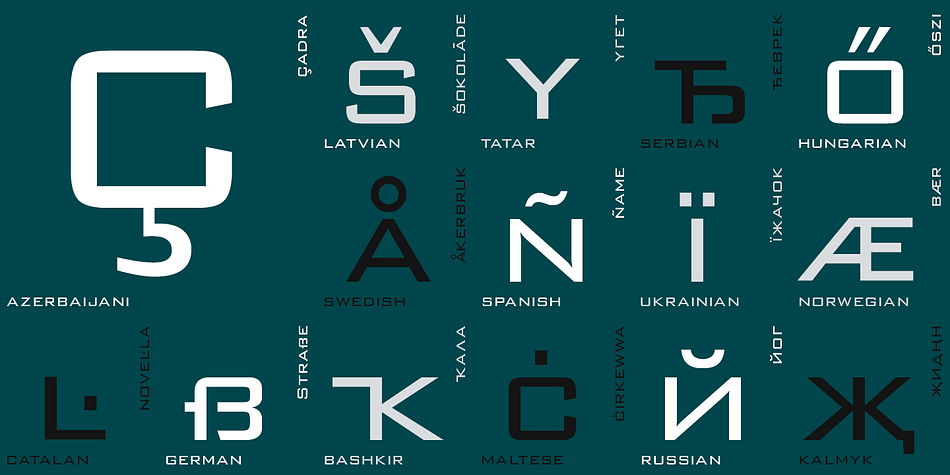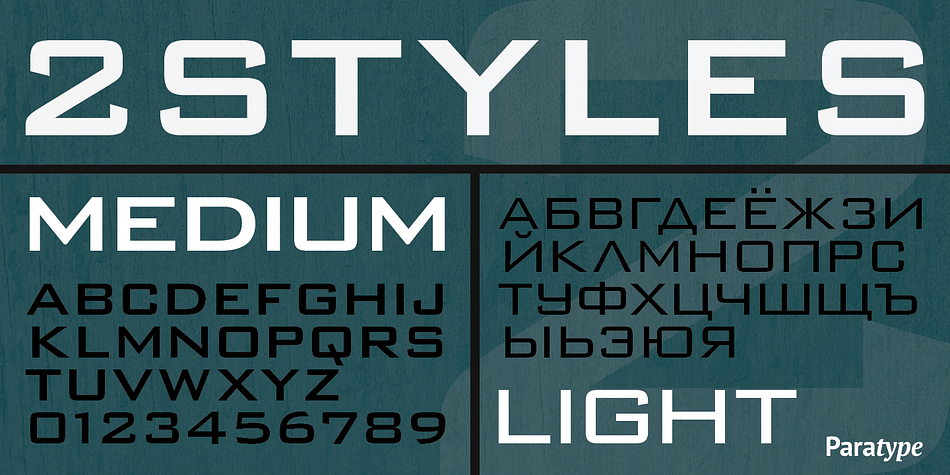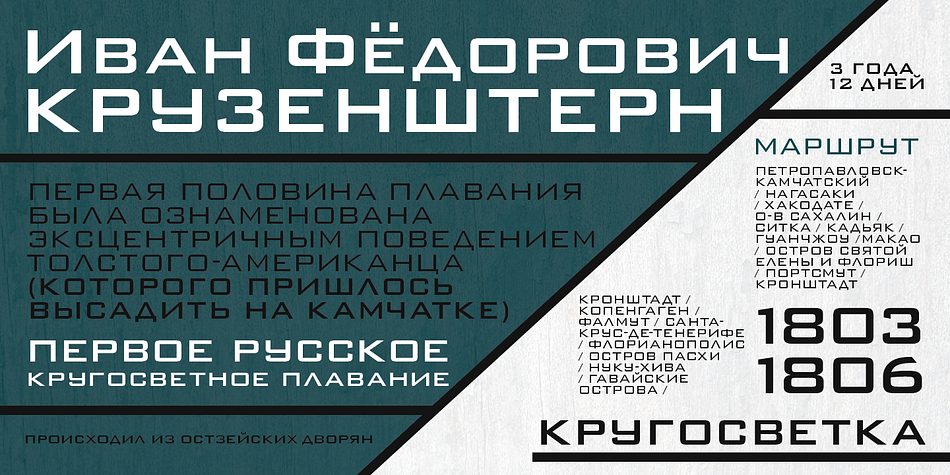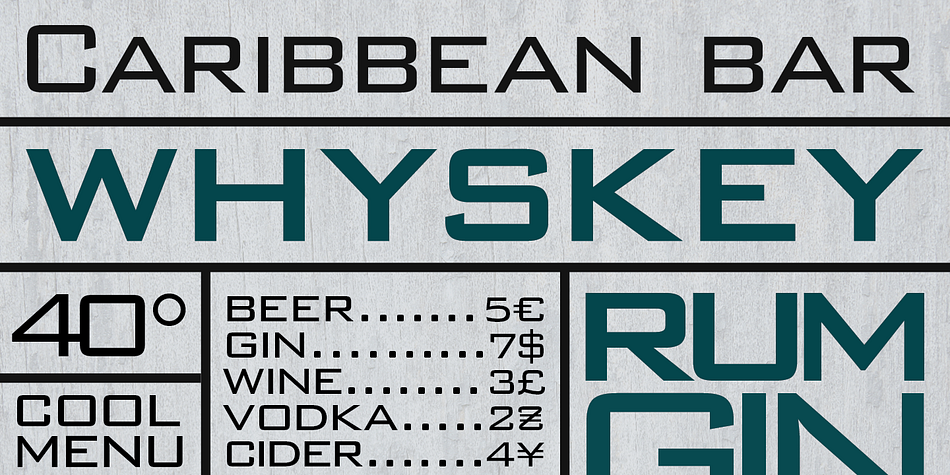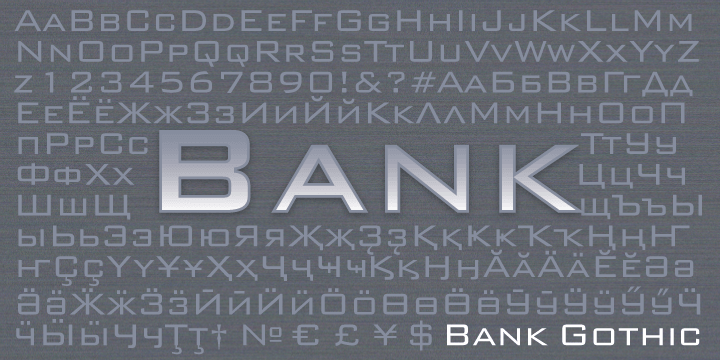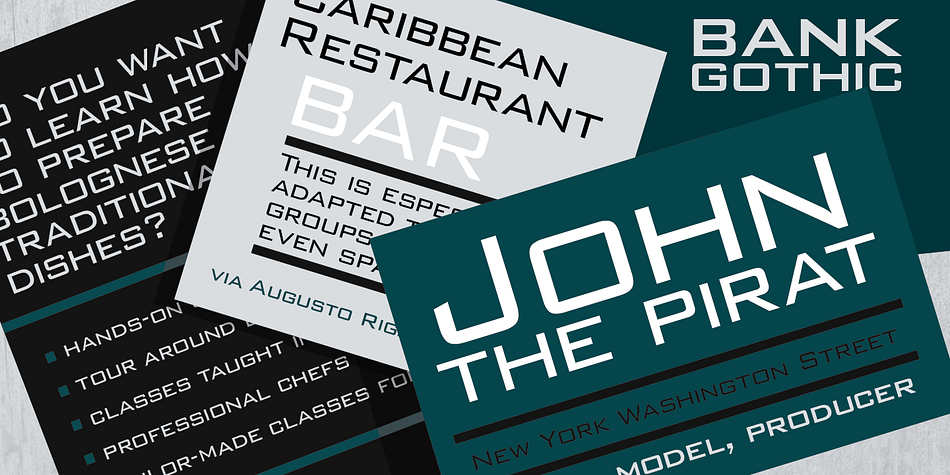
Designed by Tagir Safayev, Bank Gothic is a display sans font family. This typeface has two styles and was published by ParaType.
Designed at American Type Founders in 1930-33 by Morris F. Benton. An all-capital sans serif featuring squared-off letters with rounded corners. For use in advertising and display typography. Cyrillic version was created at ParaType (ParaGraph) by Tagir Safayev in 1997.